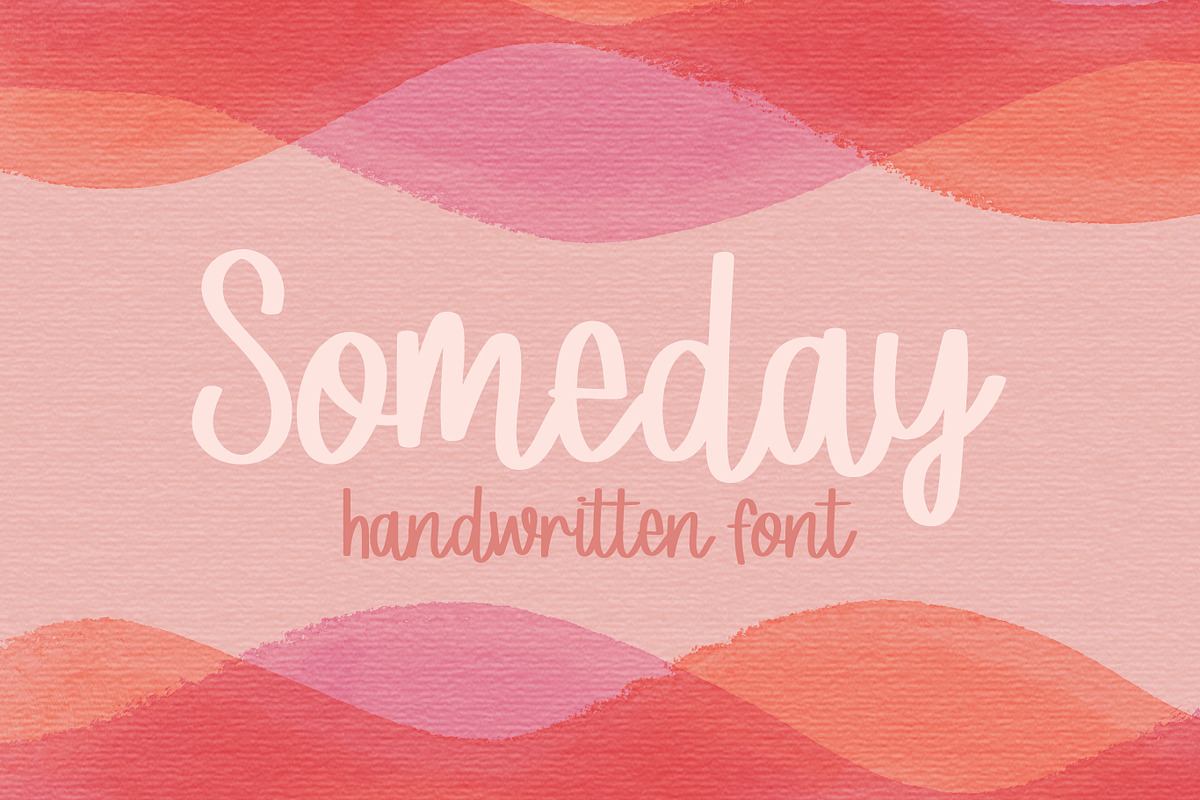
Someday Handwriting Font Free Download
Someday Handwriting Font Free Download is a beautiful and flowing handwritten typeface that adds a personal, authentic touch to your designs. With its smooth curves and natural feel, this font is perfect for creating logos, invitations, branding materials, and social media posts that require a friendly and casual vibe. The organic and elegant style makes it ideal for projects that need to evoke warmth, creativity, and individuality. Whether you’re designing for a personal brand, crafting a creative invitation, or working on a custom project, Someday Handwriting Font Free Download allows you to explore its charming design in personal projects before purchasing a commercial license. Bring a fresh, handwritten appeal to your designs with this effortlessly stylish font.